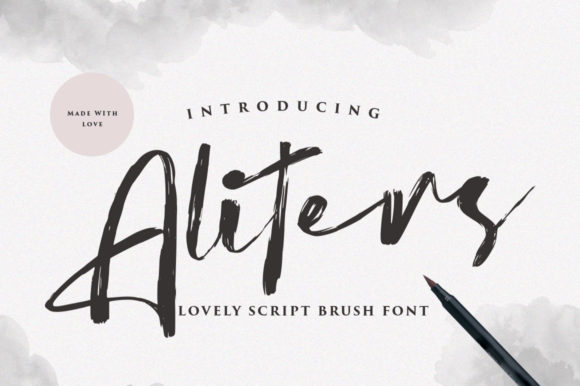
Aliters Font: Elevating Digital Brand Identity
Implementing Aliters in High-Converting Web Headers
Aliters is a beautiful handwritten font that serves as a powerful visual anchor when applied to website hero sections and primary landing page headers. As web designers, we understand that the first three seconds of user interaction determine bounce rates, and utilizing Script Handwritten styles like this creates an immediate emotional connection that standard sans serif fonts often lack. When you integrate Aliters into a hero banner for a boutique e-commerce store or a creative portfolio, the unique brush pen texture signals authenticity and artisanal quality before the user even reads the copy. This specific typeface excels in large-scale display settings where the intricate details of the brush strokes remain crisp on high-resolution screens.
For digital product creators building sales pages, Aliters provides the necessary contrast to establish a clear visual hierarchy. While body text requires the neutrality of modern geometric sans serifs to ensure maximum readability during long-form reading, your H1 and H2 tags benefit from the organic flow of this script. The versatility of Aliters allows it to function as a primary headline font for lifestyle brands while acting as a supportive accent font for more corporate entities looking to soften their digital presence. By placing this font against negative space or solid color blocks, you guide the user’s eye directly to the value proposition, leveraging the natural left-to-right momentum of the handwritten style to lead viewers toward call-to-action buttons.
Optimizing Aliters for Wedding Invitation Websites and Event Landing Pages
Fonts designed with traditional tools often struggle in digital environments, but Aliters is a beautiful handwritten font created with the help of a unique brush pen that translates exceptionally well to responsive event sites. Wedding invitation websites require a delicate balance between romantic aesthetics and functional clarity, making this typeface an ideal candidate for section dividers, couple names, and date highlights. Unlike rigid digital scripts, the organic variation in stroke width mimics the pressure of real handwriting, adding a layer of intimacy that static typography cannot achieve. For UI designers working on RSVP forms and itinerary schedules, using Aliters for decorative labels helps distinguish informational content from interactive elements without sacrificing the overall elegant theme.
When designing for mobile-first event experiences, legibility becomes the primary constraint for any Script Handwritten typeface. Aliters maintains its integrity at medium sizes, but designers should avoid using it for critical navigation links or small footer text where touch targets are dense. Instead, reserve this font for emotional touchpoints such as "Our Story" headers, menu titles, or thank-you messages post-submission. This strategic application ensures that the font enhances the user journey rather than hindering accessibility. Furthermore, when overlaying Aliters on photography backgrounds common in wedding web design, ensure sufficient contrast ratios by using text shadows or semi-transparent backdrops to preserve the delicate brush details against complex imagery.
Pairing Aliters with Sans Serif Fonts for Readable Digital Layouts
Successful web typography relies on contrast, and Aliters is a beautiful handwritten font that demands a structured partner to maintain professional digital standards. To create gorgeous wedding invitations or beautiful stationery designs that also function as cohesive brand assets online, pair Aliters with a clean, neutral sans serif like Inter, Montserrat, or Open Sans for body copy. The x-height of Aliters is distinct, so selecting a body font with a generous x-height and open counters prevents visual competition between the display and text elements. This pairing strategy is essential for SaaS founders or coaches who want to inject personality into their landing pages without compromising the scannability of their educational content or service descriptions.
In conversion-focused layouts, the relationship between your display font and body font dictates the reading rhythm. Use Aliters sparingly to punctuate key benefits or testimonials, allowing the supporting sans serif to handle the heavy lifting of information delivery. For example, in a pricing table, use the script font for the tier names (e.g., "Essential," "Premium") to add warmth, while keeping feature lists and price points in a highly legible monospaced or sans serif typeface. This approach leverages the Fonts category's best practices for hierarchy, ensuring that the decorative elements enhance comprehension rather than creating cognitive load. Always test these pairings across multiple breakpoints to ensure the line heights and spacing remain harmonious as the viewport shrinks.
Using Aliters for Social Media Graphics and Digital Ad Creatives
Digital marketers and content creators will find that Aliters is a beautiful handwritten font capable of stopping the scroll in crowded social media feeds. When designing Instagram carousels, Pinterest pins, or YouTube thumbnails, the textured brush quality of this typeface adds a tactile dimension that flat vector fonts often miss. Because social platforms compress images, the bold, confident strokes of Aliters retain their definition better than thin, spindly scripts that might pixelate or disappear against busy video backgrounds. For online stores running seasonal promotions, using this font in ad creatives reinforces brand consistency when users click through to the main website, creating a seamless visual transition from advertisement to landing page.
However, accessibility in social graphics is paramount when utilizing Script Handwritten styles. Always provide alternative text descriptions for images containing Aliters, and avoid using the font for essential contact information or complex disclaimers in ad creatives. In video overlays and Reels, animate the entrance of Aliters text to mimic the writing process, which capitalizes on the font’s inherent motion and draws attention to key messages. For digital product launches, use this typeface in email marketing headers to increase open rates and engagement; the personal feel of a handwritten font in an inbox full of corporate newsletters can significantly improve click-through performance by simulating a direct, personal correspondence.